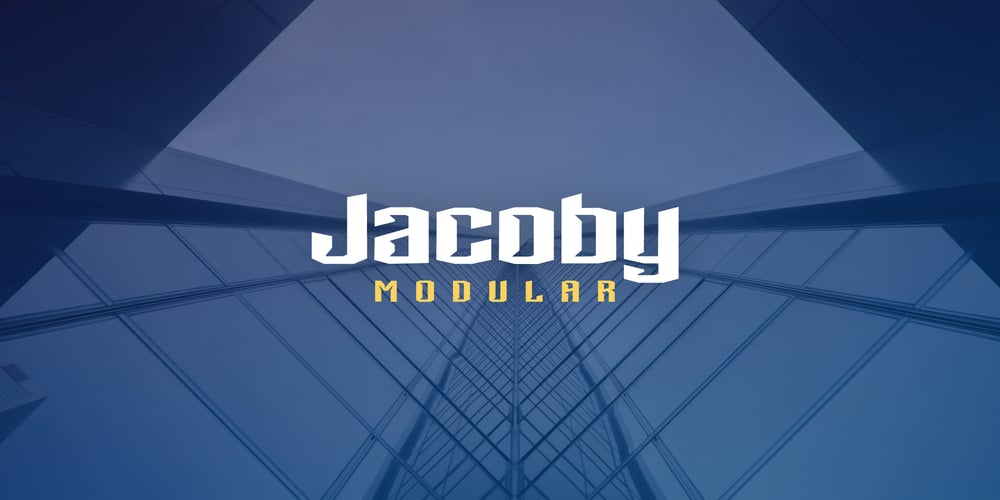
Jacoby Modular
Jacoby Modular font
Jacoby Modular Font Family was designed by Katie Jacoby and published by Jacoby Type Co. Jacoby Modular contains 6 styles and family package options. Jacoby Modular is a geometric sans serif display typeface with six styles. Jacoby Modular is a dynamic, bold typeface with a sculptural feel.